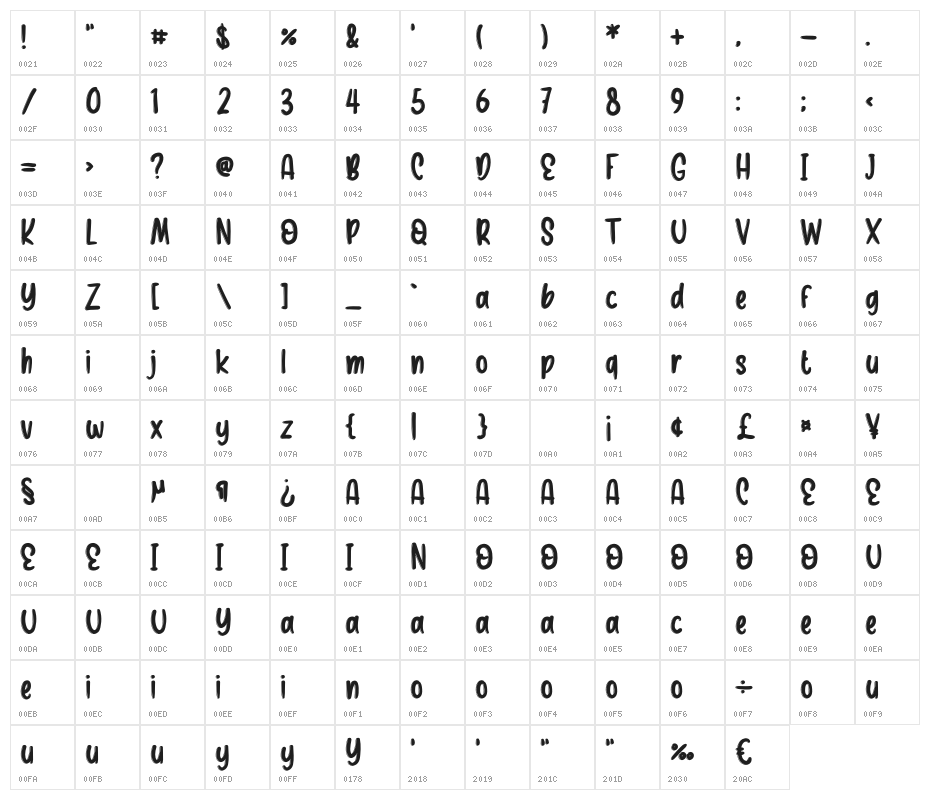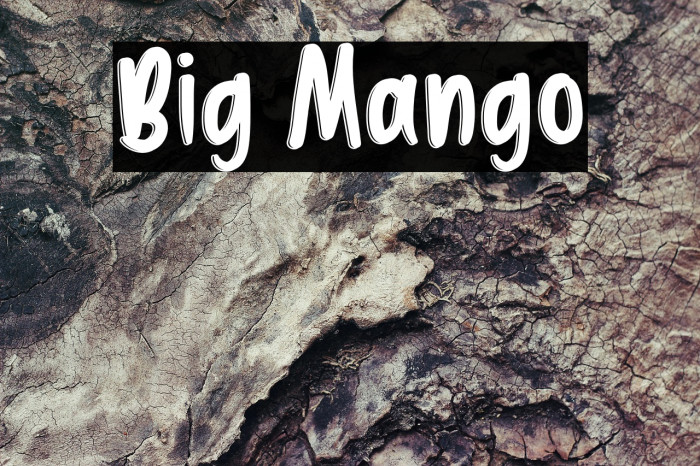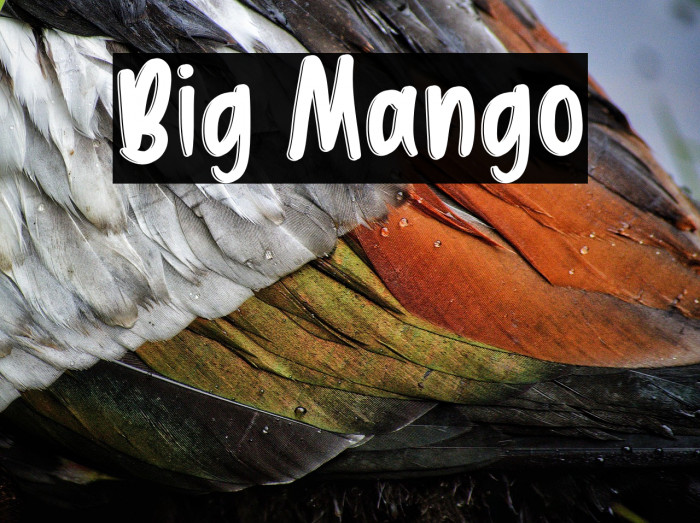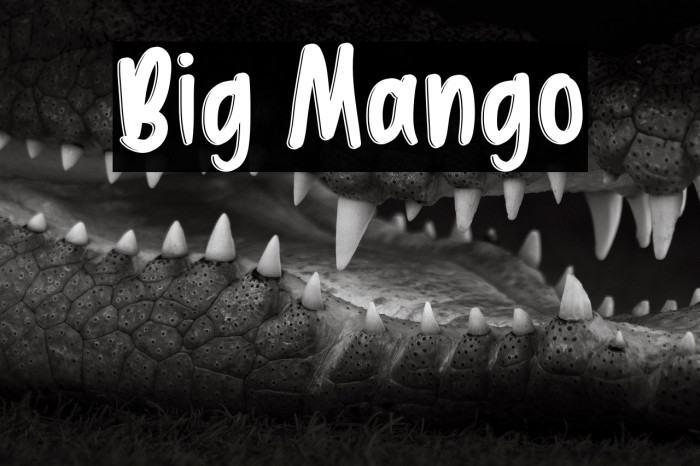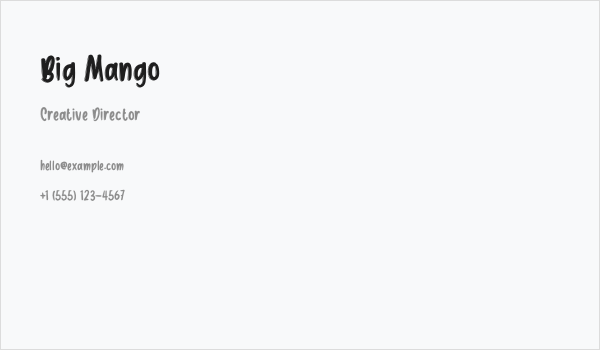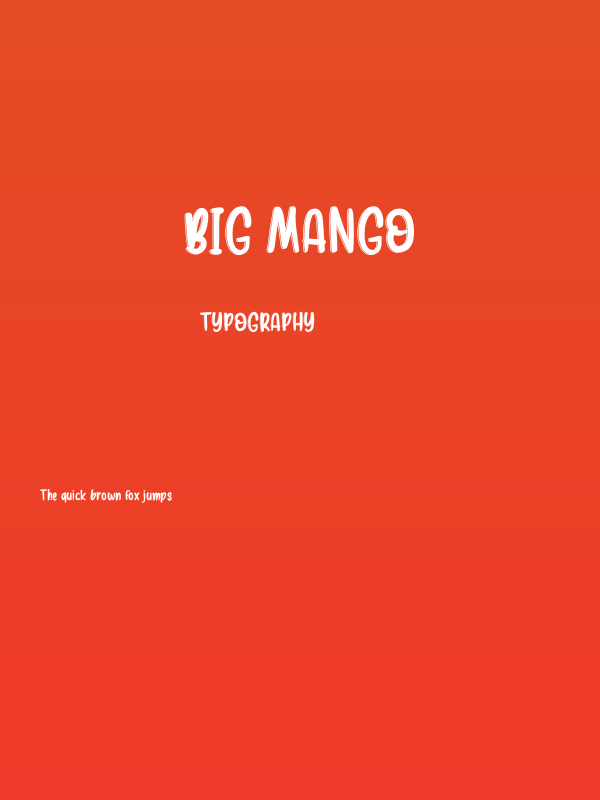
Big Mango Font
| Общий стиль | Casual |
| Рекомендуемые проекты | Ideal for children's books, playful branding, greeting cards, and social media graphics. |